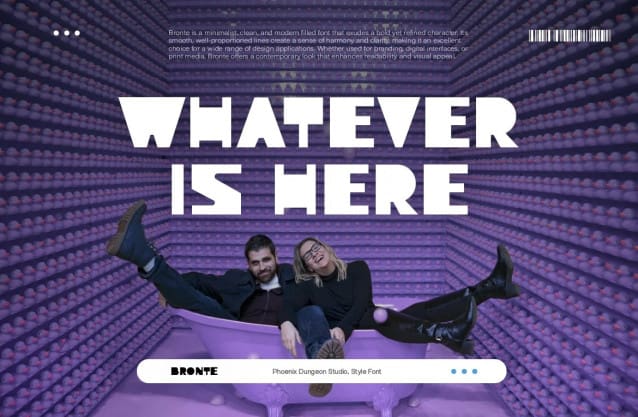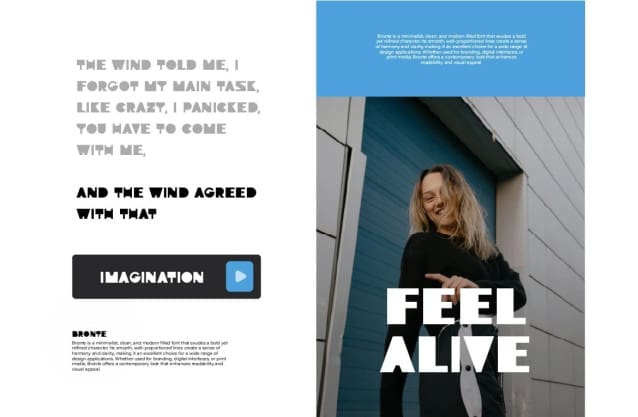
Bronte Display Typeface
Bronte Display Font is a bold sans-serif display font that embraces the essence of modern minimalism with sharp, angular lines and a striking presence. Its clean, geometric structure is designed to capture attention, while the sharp edges give it a sleek, futuristic feel. Perfect for large headings, posters, or branding that needs a strong, contemporary look, Bronte exudes confidence and clarity. The minimalist design ensures versatility, but its bold, crisp nature makes it a statement piece for any project. Bronte is the perfect choice for those seeking a modern, cutting-edge font with a sharp, commanding edge.